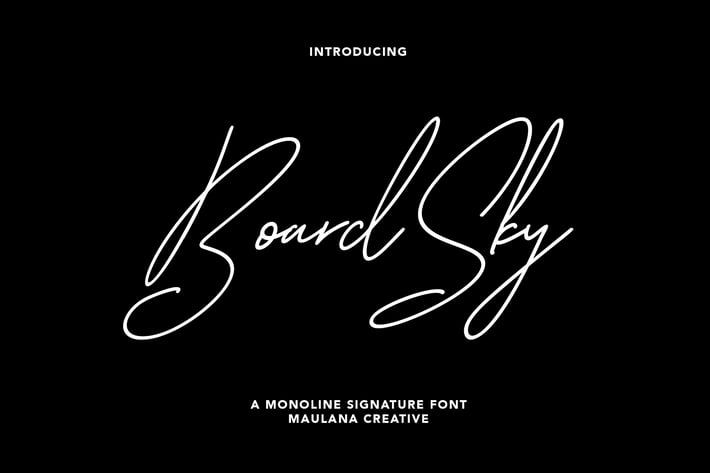
Boardsky Monoline Signature Font
Boardsky Monoline Signature Font consisting of a fashionable sophisticated signature-style script with it's own unique curves and an elegant inky flow.
Boardsky Signature is perfect for branding projects, logo, wedding designs, social media posts, advertisements, product packaging, product designs, label, photography, watermark, invitation, stationery and any projects that need handwriting taste.
- Standard glyphs
- Fonts include multilingual support for ä ö ü Ä Ö Ü ß ¿ ¡